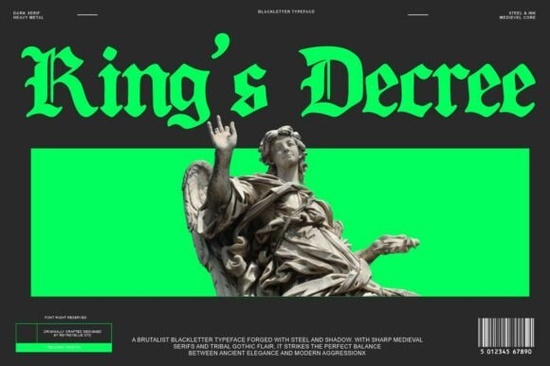
King’s Decree Font is a standout choice for anyone looking to add a touch of medieval grandeur to their designs. This bold blackletter font draws inspiration from ancient calligraphy, royal manuscripts, and gothic architecture, making it perfect for projects that require a strong visual presence. Whether you're working on a logo, tattoo design, or a fantasy-themed poster, King’s Decree brings an air of authority and elegance that’s hard to match.
If you’re exploring blackletter fonts, you might find yourself drawn to the unique style of King’s Decree. Its sharp strokes and intricate details make it ideal for creating dramatic effects in both digital and print formats. The font includes uppercase and lowercase characters, numerals, punctuation, and support for multiple languages, which adds to its versatility. This makes it a great option for designers, crafters, and small business owners who want to add a distinctive look to their work.
What Makes King’s Decree Font Unique?
One of the key features of King’s Decree is its ability to evoke a sense of history and power. The font’s design is reminiscent of old English script, but with a modern twist that makes it suitable for a wide range of applications. It’s not just about looking old-fashioned it’s about conveying strength and sophistication. This makes it a popular choice for branding, especially for businesses that want to project a strong, confident image.
The font’s dark aesthetic also makes it a favorite among those working on gothic or fantasy-themed projects. Whether you’re designing album covers, apparel, or posters, King’s Decree can help you achieve a striking visual effect. Its classic Old English style ensures that it stands out without being overwhelming, making it easy to integrate into different design styles.
How to Use King’s Decree Font in Your Projects
There are many ways to incorporate King’s Decree into your creative work. For logos, it can add a sense of tradition and authority, which is especially useful for brands that want to appear trustworthy and established. In tattoo designs, the font’s boldness and detail can enhance the overall look, giving the design a more dramatic feel.
For print-on-demand sellers, using King’s Decree can help differentiate your products from others. It’s perfect for creating custom t-shirts, mugs, and other items that require a unique and eye-catching design. The font’s multilingual support also means it can be used in a variety of markets, making it a valuable addition to any designer’s toolkit.
When choosing a font, it’s important to consider how it will fit into your overall design. King’s Decree is best suited for projects that benefit from a bold, dramatic look. If you’re looking for something more subtle, you may want to explore other options. However, for those who want to make a strong visual statement, this font is an excellent choice.
Final Thoughts
King’s Decree Font is a powerful tool for designers, crafters, and small businesses looking to add a touch of medieval elegance to their work. Its combination of boldness, detail, and historical inspiration makes it a versatile choice for a wide range of projects. Whether you’re creating a logo, designing for a fantasy theme, or simply looking for a unique font, this blackletter typeface is worth considering.
If you’re new to using blackletter fonts, start by experimenting with different sizes and placements. You’ll quickly discover how this font can transform your designs. With its strong visual impact and wide range of uses, King’s Decree is a valuable addition to any creative project.